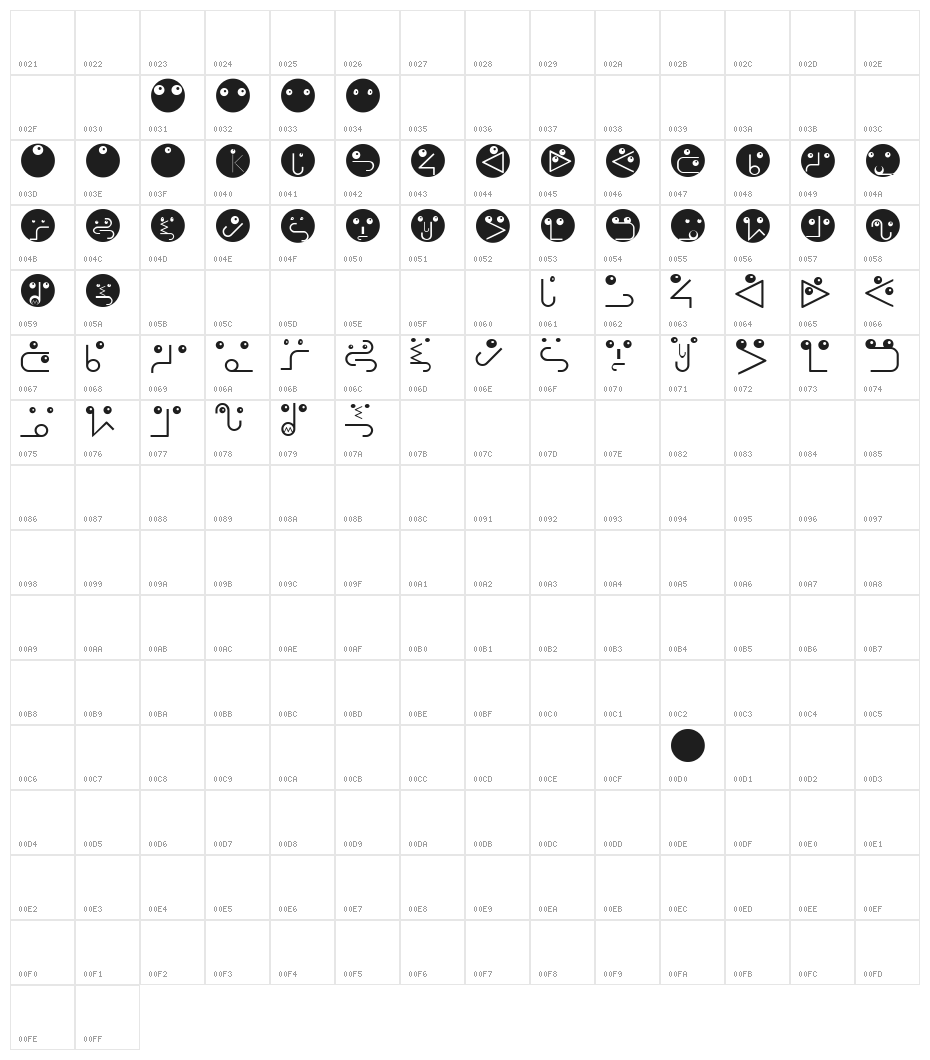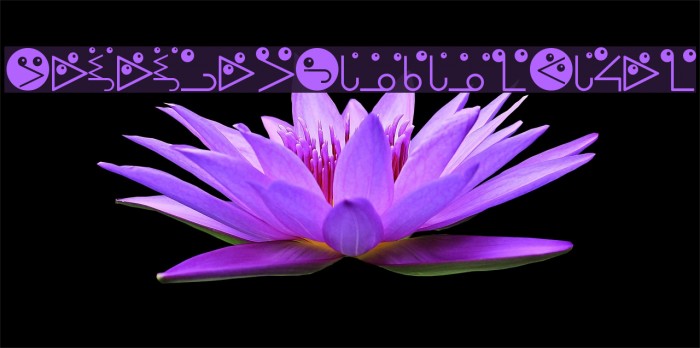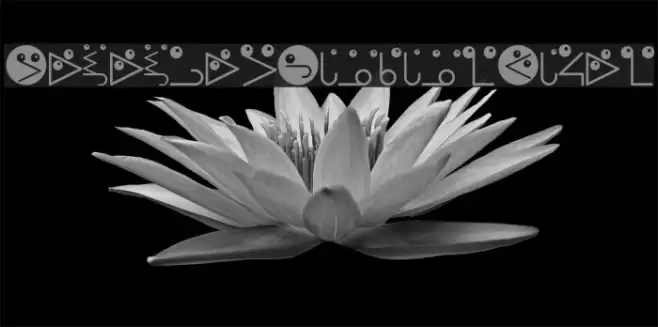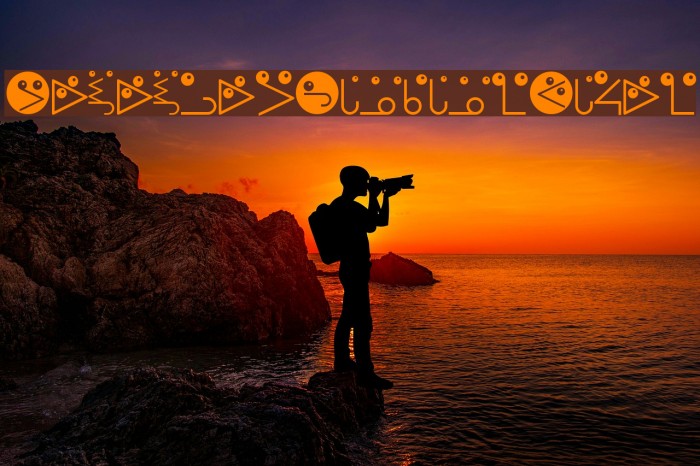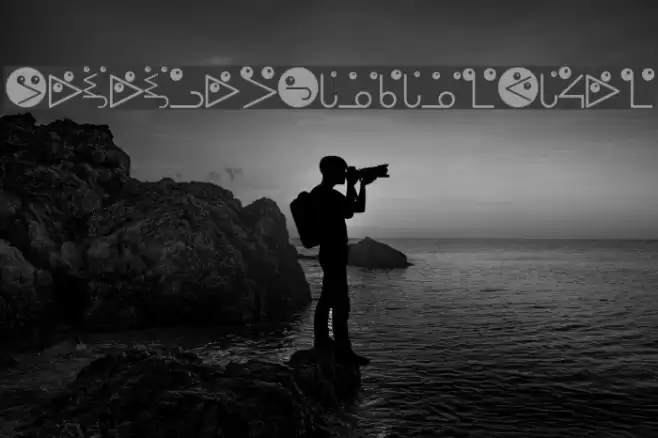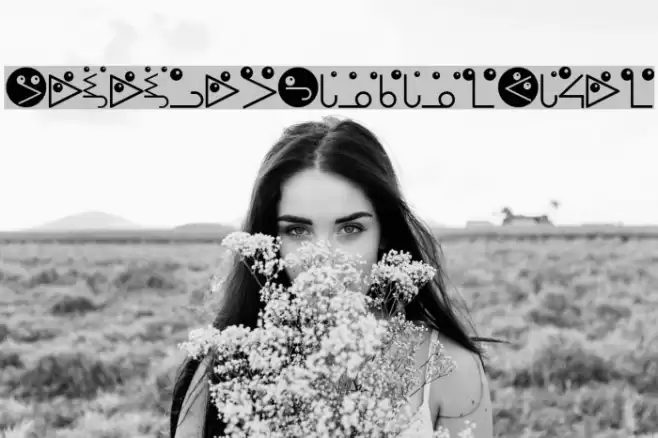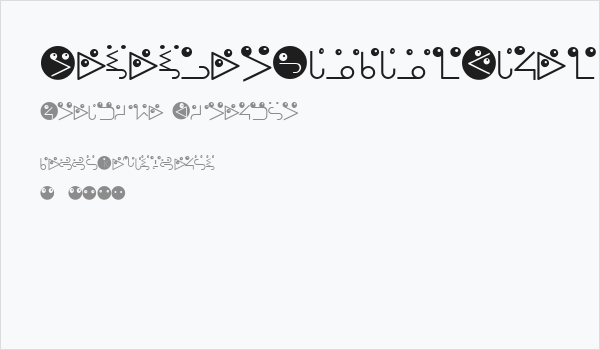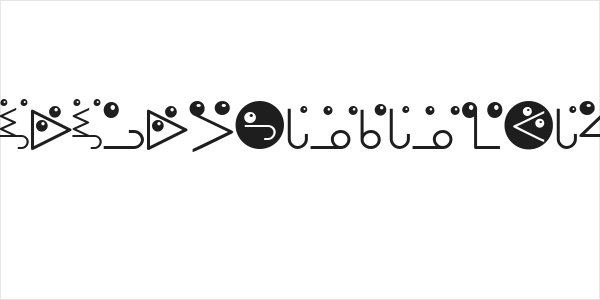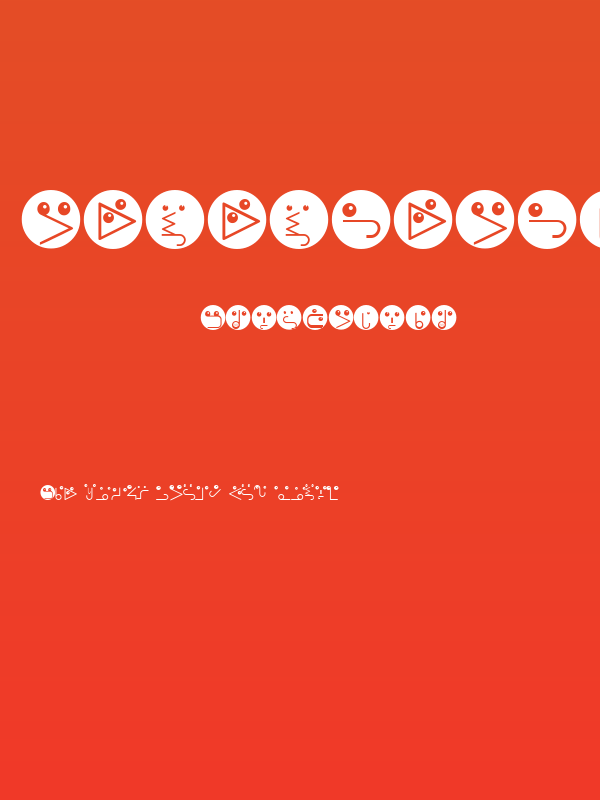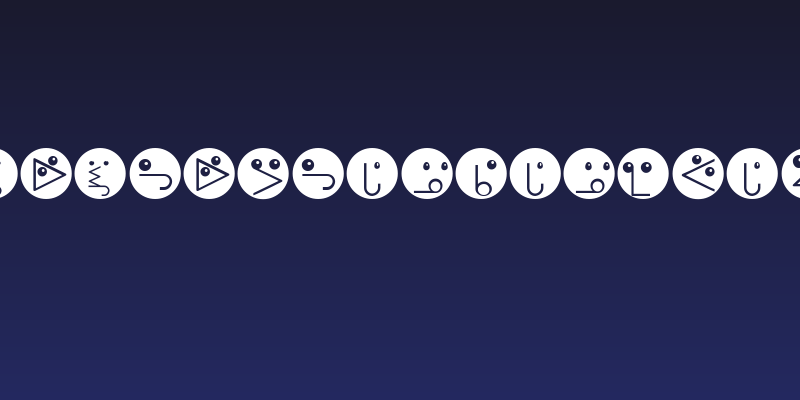
RememberBauhausFaces Font
RememberBauhausFaces Description
This font features a highly decorative and abstract style, drawing inspiration from geometric shapes and playful forms. Each character is encased within a circular boundary, creating a unique and cohesive visual identity. The design incorporates elements reminiscent of the Bauhaus movement, with a focus on simplicity and functionality, yet it maintains a whimsical and artistic flair. The characters are composed of basic geometric shapes such as circles, triangles, and lines, which are arranged in a way that suggests facial features, adding a playful and human-like quality to the text. This font is not intended for readability in traditional text settings but rather as a visual art piece or for use in creative projects where the aesthetic takes precedence over legibility.
| Use Case | Logos, Art projects, Posters |
| Proposed Projects | Ideal for art projects, posters, album covers, or any creative work that benefits from a unique and artistic typeface. |